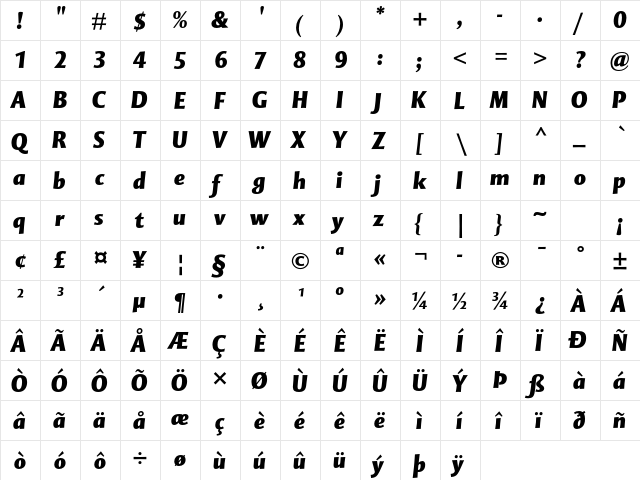
Mentor Sans Std Black Italic Font Preview
Mentor Sans Std Black Italic
Mentor Sans Std Black Italic Font Details
| Style | Black Italic |
| Designer | Michael Harvey and Andy Benedek |
Design Context for Mentor Sans Std Typeface
Mentor Sans Std offers clean, dependable letterforms without strong stylistic allegiance, making it a practical choice for designers who need flexibility. The dynamic lean of this cut emphasises speed and emphasis in any layout.
Pro Tip: Try Mentor Sans Std for annotation and caption copy alongside an upright companion — the contrast in angle creates a dynamic but ordered typographic system.